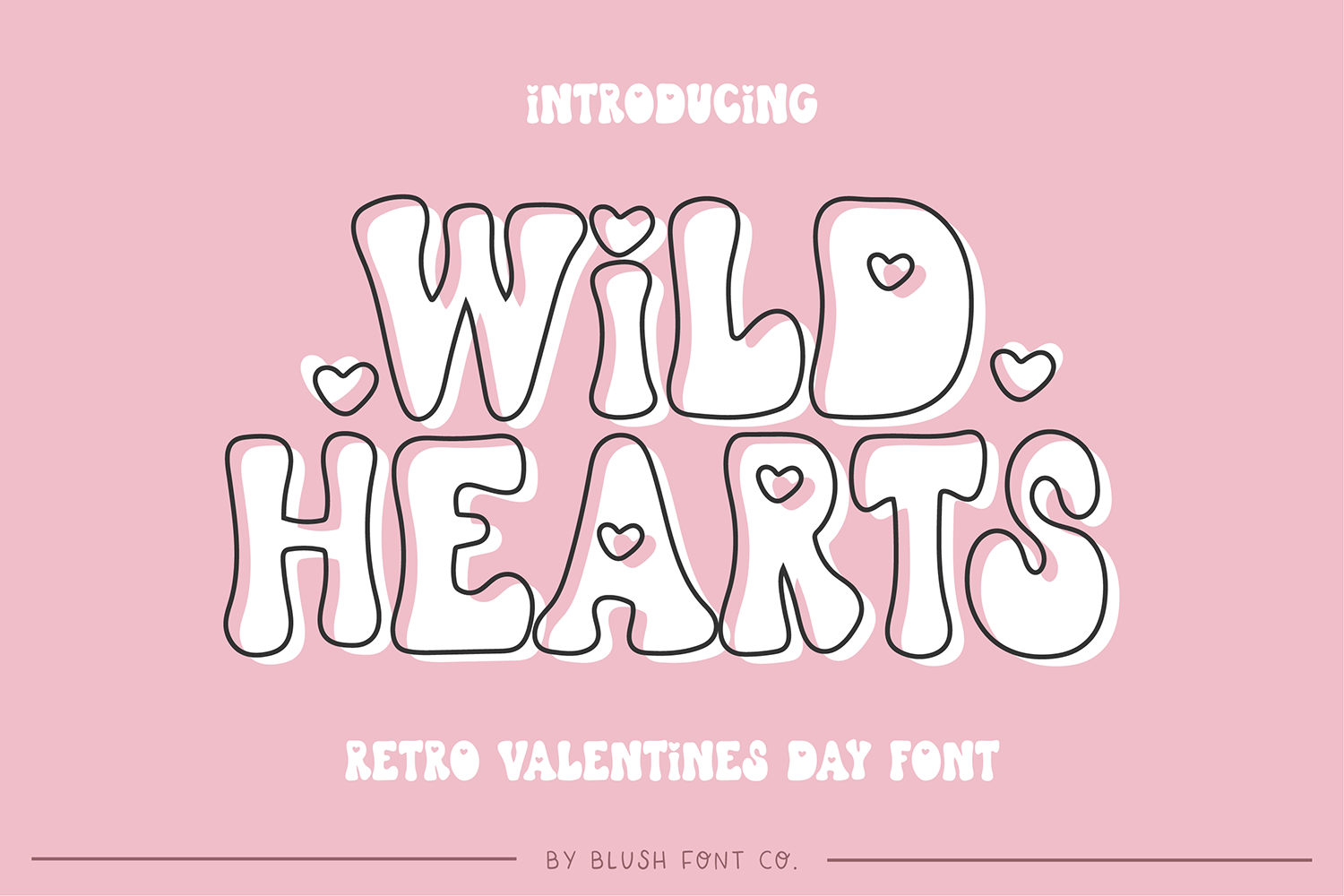
WILD HEARTS Retro Valentine Font
"Wild Hearts" a retro Valentine's Day font.
This font is a bold display font that is perfect for social media or crafty projects. Use if for branding, crafts for decor, invitations, and more! All caps glyphs, numbers, and punctuation marks.